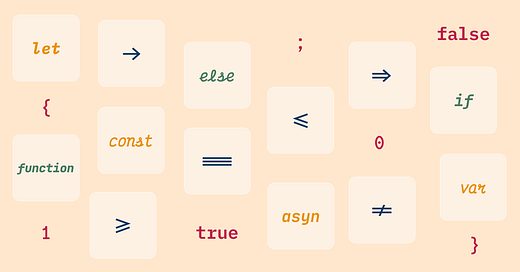
Monospaced Coding Font with True Italic
For context, italics come in two flavors: faux and true. Many fonts offer slightly slanted versions derived from the original letterforms. This slanted version of italic is called faux italic.
On the other hand, true italics offer more visual distinctiveness: Rather than simply slanted, they look very different from the fonts’ regular versions –– italic letters are distinctive. The true italic takes inspiration from calligraphy or cursive writings in Operator Mono.
Since many IDE themes use italics for comments and keywords, having uniquely different italics is incredibly helpful in making these stand out and easier to read.
Here are three fantastic, free, and open-sourced coding fonts with true italics, similar to Operator Mono.
Victor Mono
Like Operator Mono, Victor Mono takes inspiration from cursive style letterforms to create true italics that make keywords and comments stand out.
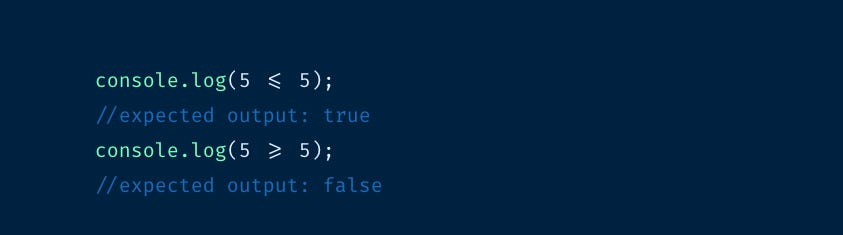
IBM Plex Mono
Though cursive-style letters look distinct, they may not be the best reading experience for everyone. IBM Plex Mono is a great coding font if you feel more at ease reading without the cursive letterforms. Its italic has style influence from cursives but still looks monospaced and remains distinctive enough to stand out from the normal version.
JetBrain Mono
A quiet rebel, JetBrains Mono’s italic is more muted than all the coding fonts we have covered to minimize reading disruptions. JetBrains Mono uses true italic construction for only three of its letters, “a”, “y”, and “f”, and features a small degree of slant.
Monospaced Coding Font with Ligature
While researching Operator Mono, we went down a rabbit hole with ligatures, a popular feature that many coders pursue and hack. With that said, some argued against using coding ligatures, claiming they fiddled with the semantic meaning of code.
In a font, ligatures are special characters that combine two or more characters. For example, the letter "f" has a high frequency of appearing with "i" and "l", as in words like “figure” and “flower.” To improve the readability in these specific cases, font designers created ligatures as a solution - common letter combinations, like "fi" and "fl", would be combined to create a unique character that would replace the two letters when typed together. So, if a font has a ligature for arrow, “= >”, the ligature “=>” would replace the two characters, “=” and”>.”
Though Operator Mono does not currently support any ligatures, two of the fonts we featured in this post do –– Victor Mono and JetBrains Mono. Fira Code also has a popular ligature set that many programmers use to configure fonts like Operator Mono or Source Code Pro, which lacks programming ligatures of their own.
Victor Mono
In addition to true italic, another bonus about Victor Mono is that it has programming ligatures that make things like arrow, "=>", easy. Coding ligature is a feature Operator Mono is yet to have.
JetBrains Mono
JetBrains Mono features an excellent set of ligatures for programming to reduce the noise of multiple letters in your code.
Fira Code
Fira Code is one of the most popular coding fonts with ligatures. It is so popular that many use Fira Code’s ligature to add to other programming fonts that don’t have coding ligatures. Fira Code also does not have any italics.
To Wrap Up...
Both Victor Mono and JetBrains mono are coding fonts with ligature and true italic features. When it comes to visual noises of true italics, they are polarizing end of spectrums. Victor Mono is similar to Operator Mono, with a highly distinctive italic that stands out, Whereas JetBrains Mono is more muted and blends in with the rest of the code.
If you don’t care for ligatures, IBM Plex Mono is an excellent choice as a coding font with true italics. Ligatures can also be disabled in Victor Mono and JetBrains Mono. Fira Code also has an excellent set of programming ligatures.